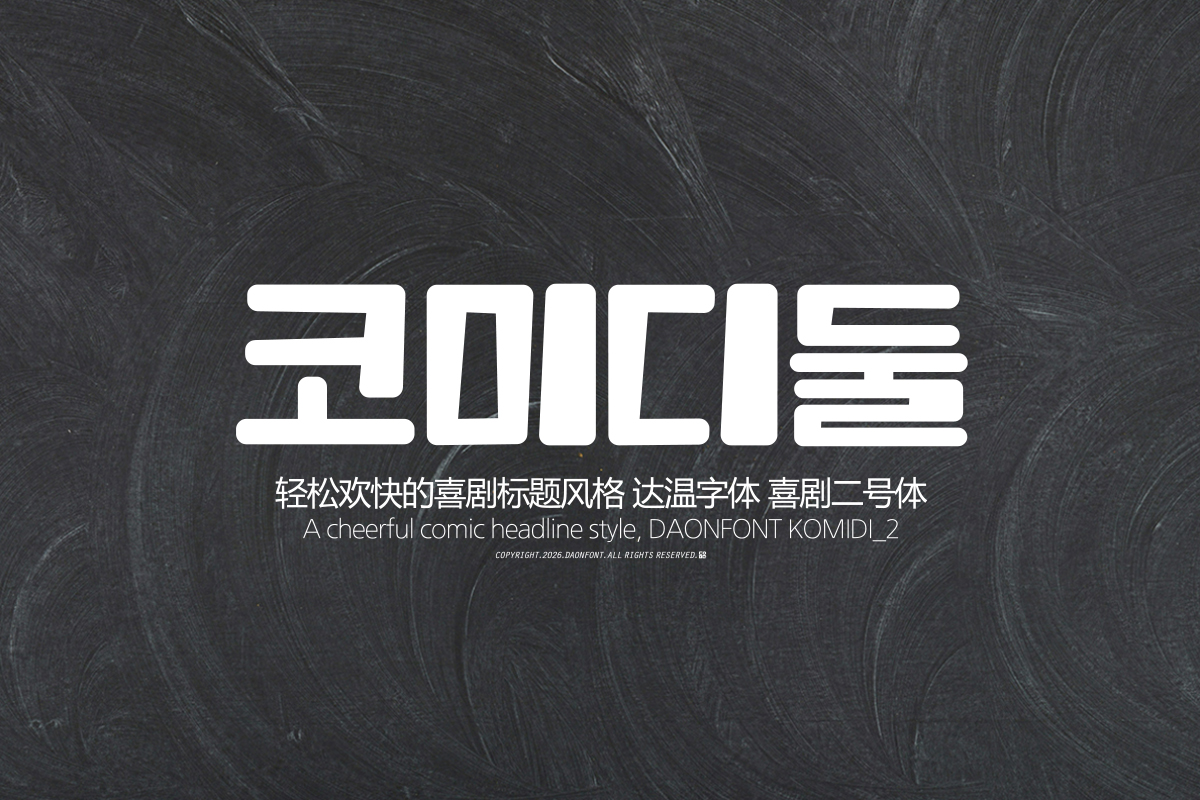
DAON kOMIDI2
'KOMIDI2' is a Korean display font that expresses a lively and witty sensibility through typography. Designed with a focus on a bright and cheerful atmosphere, this font conveys joy and a positive impression to the viewer.